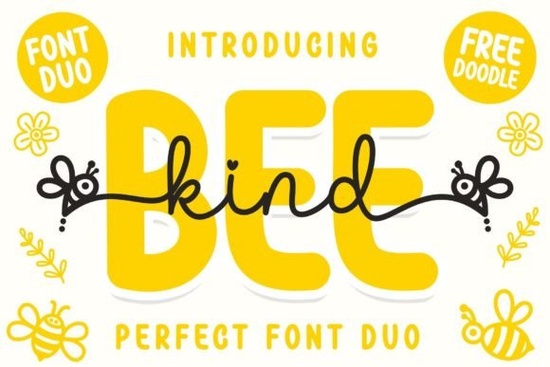
If you're looking for a cheerful, whimsical font that brings warmth and charm to your designs especially those aimed at kids or playful branding the Bee Kind Duo Font is worth a closer look. This Creative Fabrica offering includes two complementary styles: a bouncy script and a friendly sans display. Together, they create visual harmony while keeping things light, approachable, and full of personality. Inspired by the gentle buzz of bees, it’s perfect for baby shower invites, children’s apparel, classroom decor, or even honey-themed product labels.
What sets this duo apart is its thoughtful design and usability. Both fonts are PUA (Private Use Area) encoded, which means all the decorative glyphs, alternate characters, and swashes are easily accessible without needing special software tricks. If you’ve ever struggled to find those extra flourishes in other script fonts, you’ll appreciate how straightforward it is here just select the character, and it appears.
Who is the Bee Kind Duo Font best for?
This font shines in projects where friendliness and innocence matter most. Think:
- Print-on-demand sellers creating onesies, mugs, or wall art with uplifting messages
- Small business owners designing logos for bakeries, organic skincare lines, or local farms
- Teachers and homeschoolers making printable worksheets or classroom name tags
- Crafters personalizing greeting cards, party banners, or scrapbook layouts
Because it includes both a script and a clean sans-serif companion, you get flexibility. Use the script for headlines (“Bee Happy!”) and the sans for supporting text (“Made with love in Portland”) all within the same cohesive aesthetic.
How does it compare to other playful duos?
On Creative Fabrica, there are several charming font duos that serve similar audiences. For example, the Beach Waves Duo leans into relaxed, coastal vibes with flowing letterforms, while the OurStory Font Duo offers a more handwritten, journal-like feel great for storytelling brands. If you prefer something with a bit more structure but still warm, the Brown Carolina Duo blends elegance with rustic charm.
Meanwhile, the Montana Font stands out for its bold, brush-style strokes, and the Mega Notebook Handwriting Bundle gives you dozens of casual, notebook-inspired options for ultra-authentic handwritten looks. Each has its niche but if your project calls for sweetness with a hint of nature (and maybe a bee or two), Bee Kind Duo Font hits that note just right.
Tips for using Bee Kind effectively
To get the most out of this font duo, keep these practical pointers in mind:
- Avoid overloading designs. The script already has playful energy pair it with plenty of white space or simple illustrations so it doesn’t feel cluttered.
- Use the sans display for readability. While the script is eye-catching, the sans version ensures your secondary text (like dates, prices, or instructions) remains clear at small sizes.
- Experiment with glyph variations. Thanks to PUA encoding, try swapping in different ending swashes or alternate letters to give each word a custom touch ideal for unique product names or monograms.
- Stick to warm, natural color palettes. Soft yellows, creamy whites, sage greens, and sky blues complement the bee theme without overpowering it.
Remember, fonts like this work best when they support your message not distract from it. A “Bee Kind” tote bag with this font feels intentional and heartfelt; the same design in a stiff serif might miss the emotional mark entirely.
Ready to try it?
If your next project needs a dose of gentle cheer, the Bee Kind Duo Font delivers without fuss. It’s easy to install, compatible with major design tools (including Canva, Silhouette Studio, and Adobe apps), and scales well from digital graphics to physical prints.